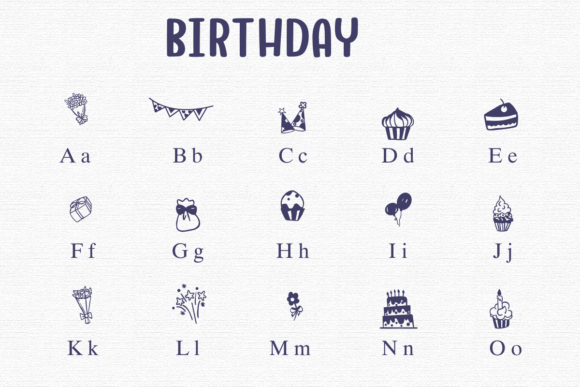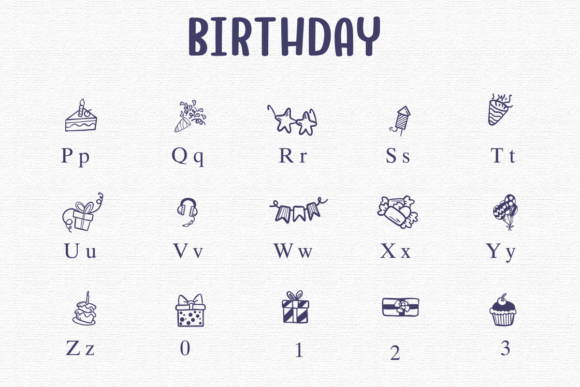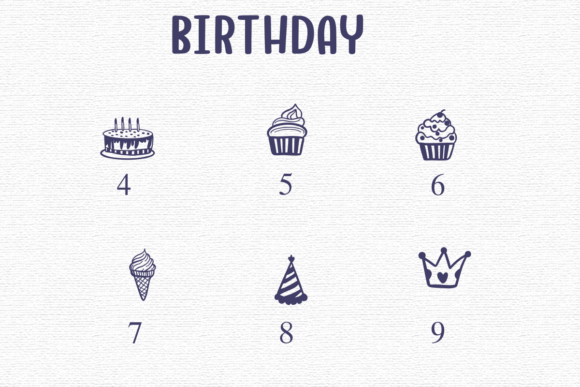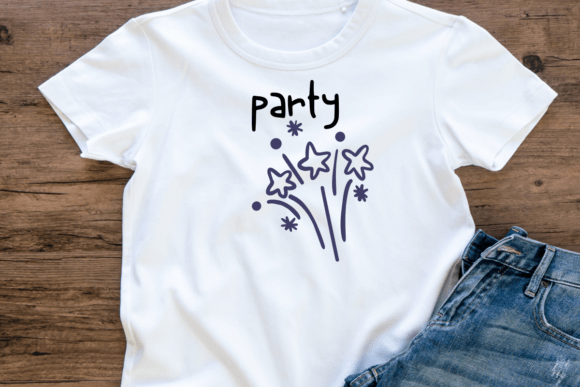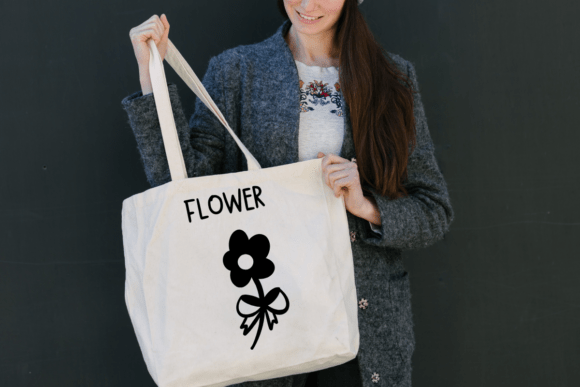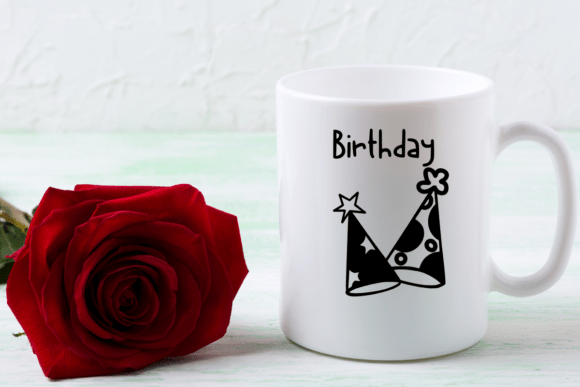
Introducing Birthday Font: The Ultimate Festive Dingbats Font
Are you looking for a font that can add a touch of celebration and festivity to your creative projects? Look no further than Birthday Font, a delightful dingbats font designed to bring joy and excitement to your designs. In this article, we’ll explore the features and benefits of Birthday Font, and how it can elevate your creative projects, from wedding invitations to DIY crafts and decorations.
What is Birthday Font?
Birthday Font is a unique dingbats font that features a festive theme, perfect for creating celebratory designs. The font is comprised of various birthday-themed symbols, including balloons, cakes, candles, and more. Each character is carefully crafted to bring a sense of fun and excitement to your designs, making it ideal for a wide range of creative projects.
Features of Birthday Font
- Festive theme: Birthday Font features a festive theme that’s perfect for creating celebratory designs.
- Dingbats font: The font is a dingbats font, which means it’s comprised of symbols and icons rather than traditional letters and numbers.
- Scalable: The font is scalable, which means you can use it for a wide range of projects, from small crafts to large-scale designs.
Benefits of Using Birthday Font
So, why should you use Birthday Font for your creative projects? Here are just a few benefits:
- Add a touch of celebration: Birthday Font can add a touch of celebration and festivity to your designs, making them perfect for birthday-themed projects.
- Unique and creative: The font is unique and creative, allowing you to create designs that stand out from the crowd.
- Versatile: Birthday Font is versatile and can be used for a wide range of projects, from wedding invitations to DIY crafts and decorations.
- Easy to pair with other fonts: The font is easy to pair with other fonts, making it simple to create visually appealing designs.
Ideas for Using Birthday Font
So, how can you use Birthday Font in your creative projects? Here are a few ideas to get you started:
- Wedding invitations: Use Birthday Font to create festive and celebratory wedding invitations.
- DIY crafts: Add a touch of festivity to your DIY crafts, such as party decorations, gift tags, and more.
- Decorations: Use Birthday Font to create custom decorations, such as banners, garlands, and more.
- Logos: Use the font to create custom logos for birthday-themed businesses or events.
- Social media graphics: Use Birthday Font to create festive and engaging social media graphics.
Tips for Using Birthday Font
Here are a few tips for using Birthday Font in your creative projects:
- Experiment with different sizes: Experiment with different sizes to find the perfect fit for your project.
- Pair with other fonts: Pair Birthday Font with other fonts to create visually appealing designs.
- Use in combination with images: Use the font in combination with images to create custom graphics and designs.
- Have fun: Most importantly, have fun and be creative!
In conclusion, Birthday Font is a unique and festive dingbats font that’s perfect for adding a touch of celebration to your creative projects. With its easy-to-use design, scalable features, and versatile applications, Birthday Font is a must-have for designers and crafters. Whether you’re creating wedding invitations, DIY crafts, or decorations, Birthday Font is sure to bring joy and excitement to your designs.